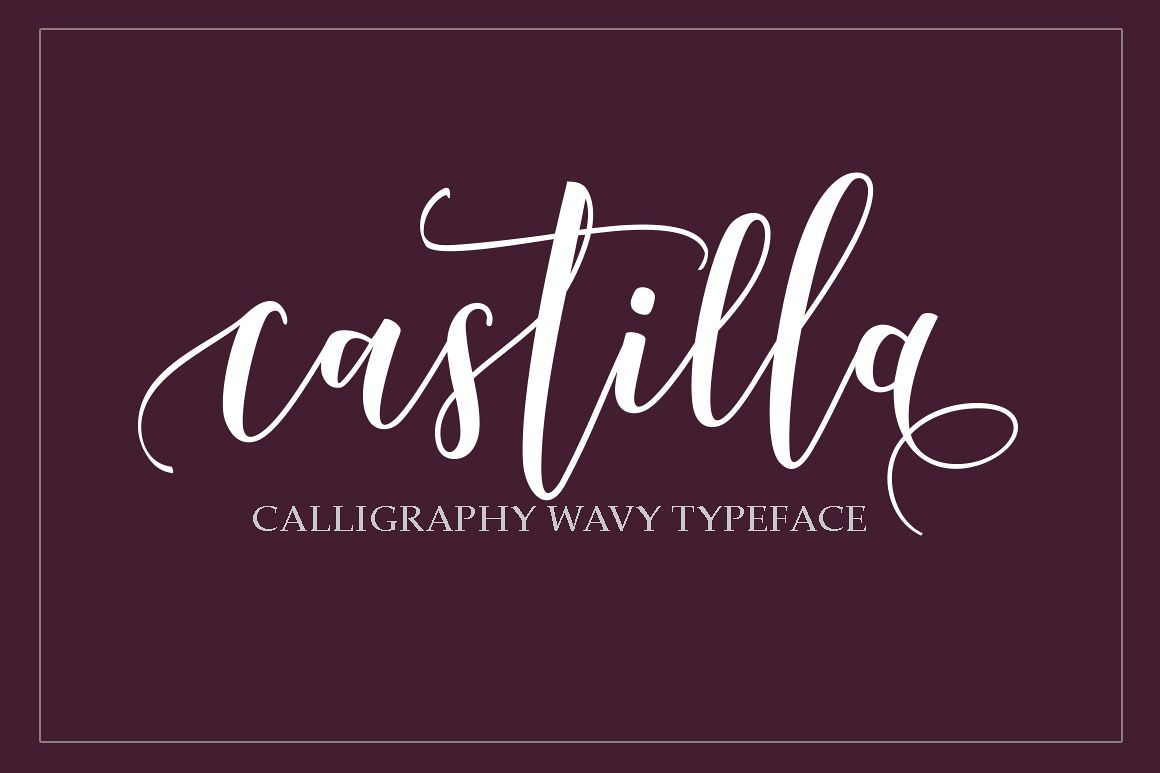
Castilla Script
Castilla Scrip
Castilla Script, is a calligraphy wavy, modern and
clasik, so soft, perfect for your next design, such as logos, printed
quotes, invitations, cards, product packaging, headers and anything else
about your imagination.
Castilla Script allows you to create custom dynamic
text. you can access by turning on; Stylistic Alternates, Swash,
Stylistic Set, Initial as well as ligatures in Photoshop, Adobe
Illustrator, Adobe InDesign or through a panel of glyphs such as Adobe
Illustrator, Photoshop CC, Let's switch from the reguler character into
character alternative to get the text with the layout of your dreams.
Castilla Script also includes glyphs, punctuation, numbers, and
multilingual.
Castilla Script features 390 glyphs and has given
PUA unicode (specially coded fonts), with tons of alternate characters.
Language Support : Albanian, Basque, Breton, Chamorro, Danish, Dutch,
English, Faroese, Finnish, French, Frisian, Galician, German,
Icelandic, Italian, Malagasy, Norwegian, Portuguese, Swedish.
The Features of this fonts is: Standart ligatures, Stylistic Alternates, Stylistic Sets, Initial Form & Terminal Form
Features Basic Latin A-Z and a-z Numbers Symbols